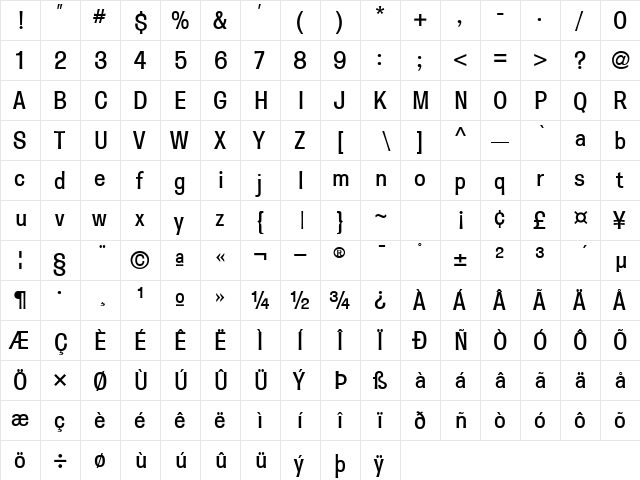
RelaxedFit Regular
Design Context for RelaxedFit Typeface
RelaxedFit takes a measured approach to typography — its balanced proportions and neutral character make it a reliable workhorse for both digital and print work.